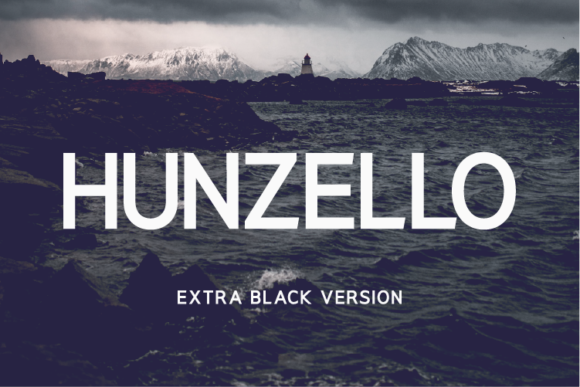
Introducing Hunzello Extra Black Font - Bold, Striking, and Modern
Immerse yourself in the realm of typography with Hunzello Extra Black Font, a stunning sans serif typeface that embodies boldness, confidence, and modernity. Hunzello exudes simplicity and elegance with its crisp lines, sharp angles, and perfectly balanced letterforms. This font is a must-have for discerning designers seeking to make an unforgettable impact.
With its undeniable clean feel, Hunzello effortlessly elevates designs, whether in the realm of branding, web design, or print media. Its minimalist aesthetic lends itself seamlessly to both formal and non-formal contexts, adding a touch of sophistication and luxury to any project.
Visualize your designs reaching new heights with Hunzello. Envision captivating logos that command attention, brochures that leave a lasting impression, and websites that exude professionalism. Unleash your creativity and watch as Hunzello transforms your designs into works of art.
Crafted by the skilled hands of Huntype, Hunzello is a testament to meticulous design and attention to detail. Each character has been meticulously crafted to ensure perfect readability and visual appeal, even in the most demanding applications.